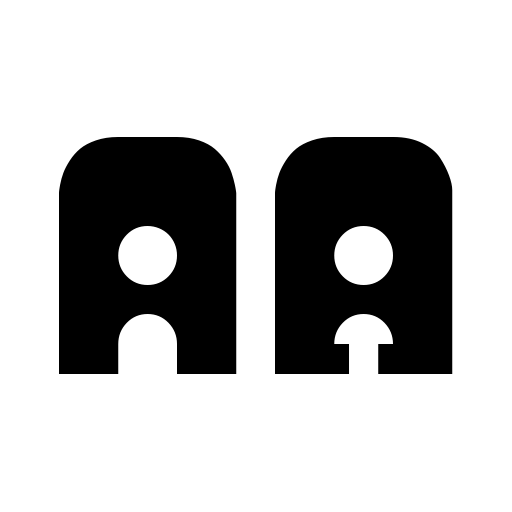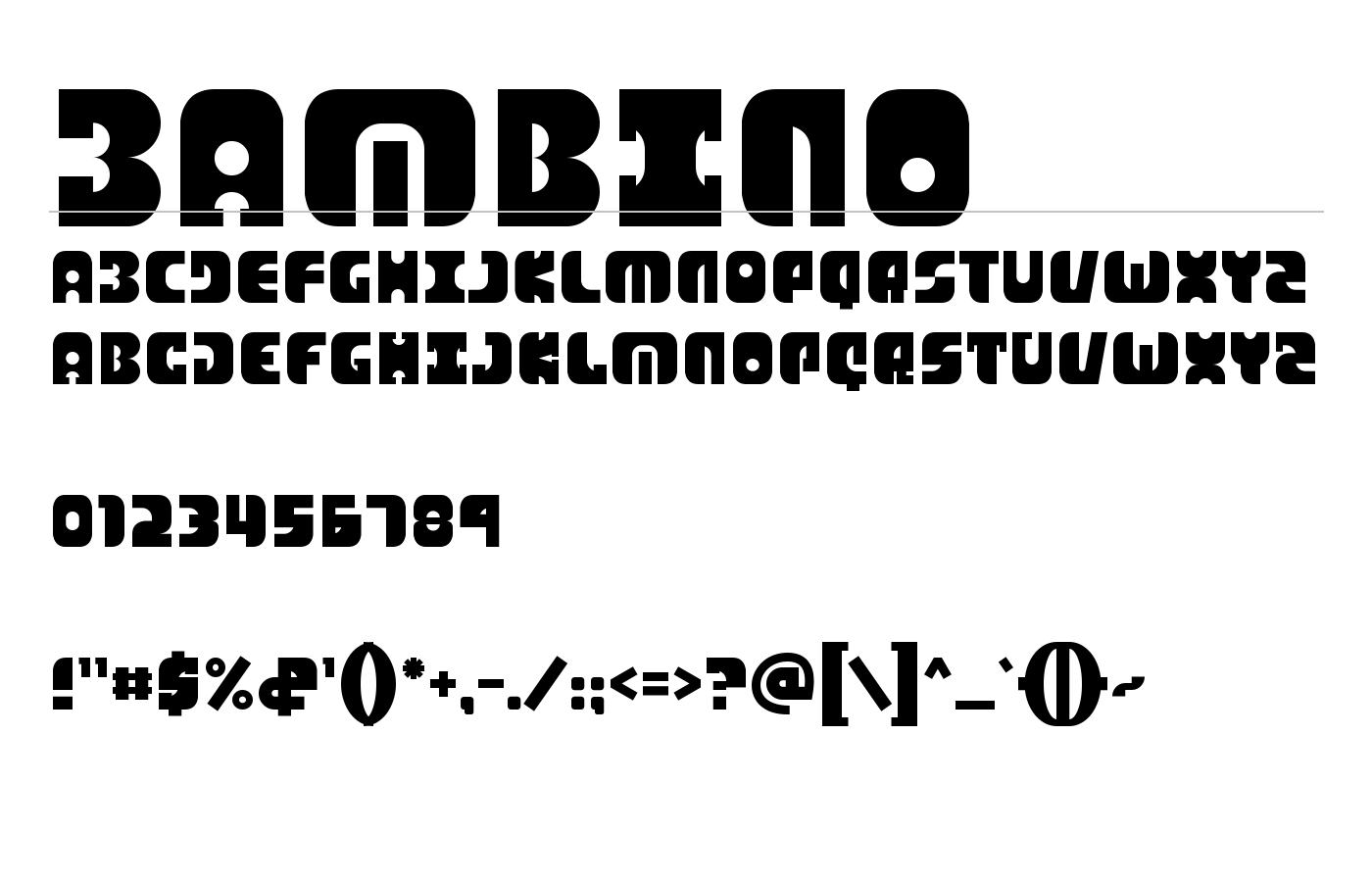
Bambino is a bold, geometric sans serif font featuring strong, blocky letterforms with playful cutouts that add a unique, retro-modern flair. Its heavy weight and condensed width create a compact, impactful look perfect for eye-catching headlines, logos, and posters that want to stand out with a fun, distinctive style. This font works well in creative branding and display contexts where a bold yet approachable personality is needed.
Bambino Font
About Bambino Font